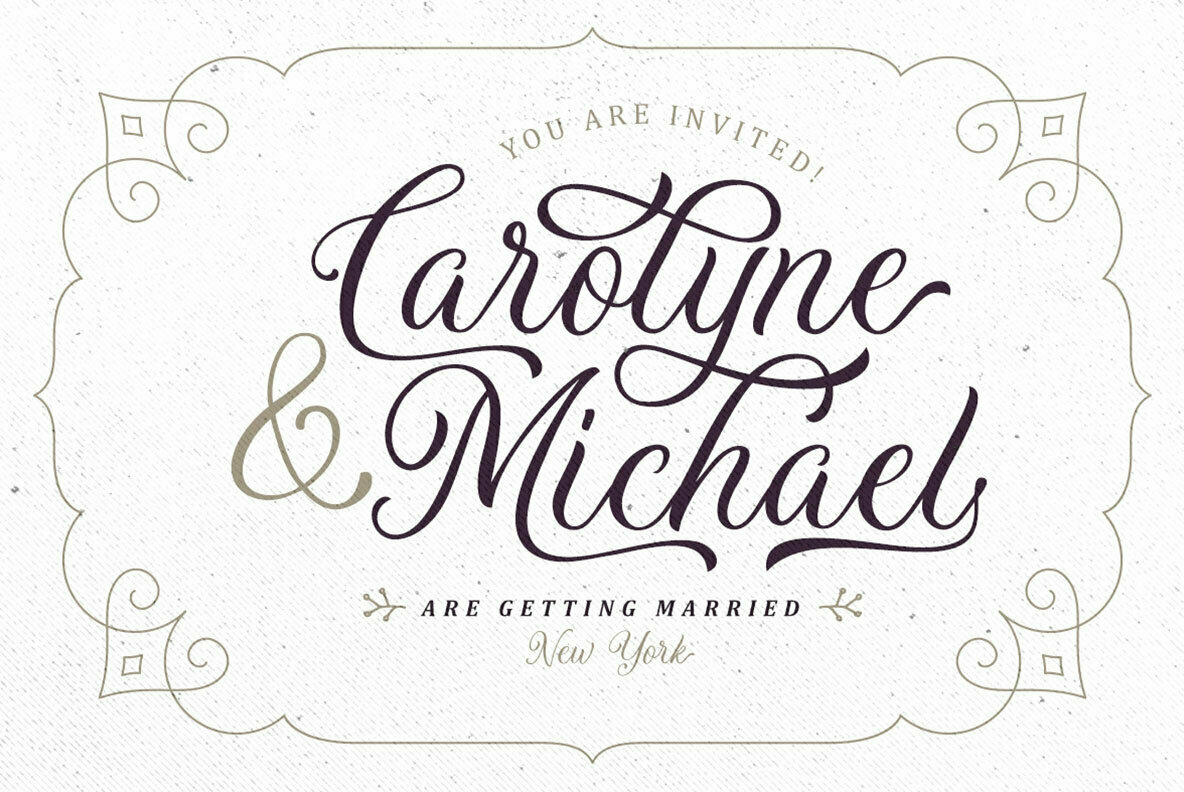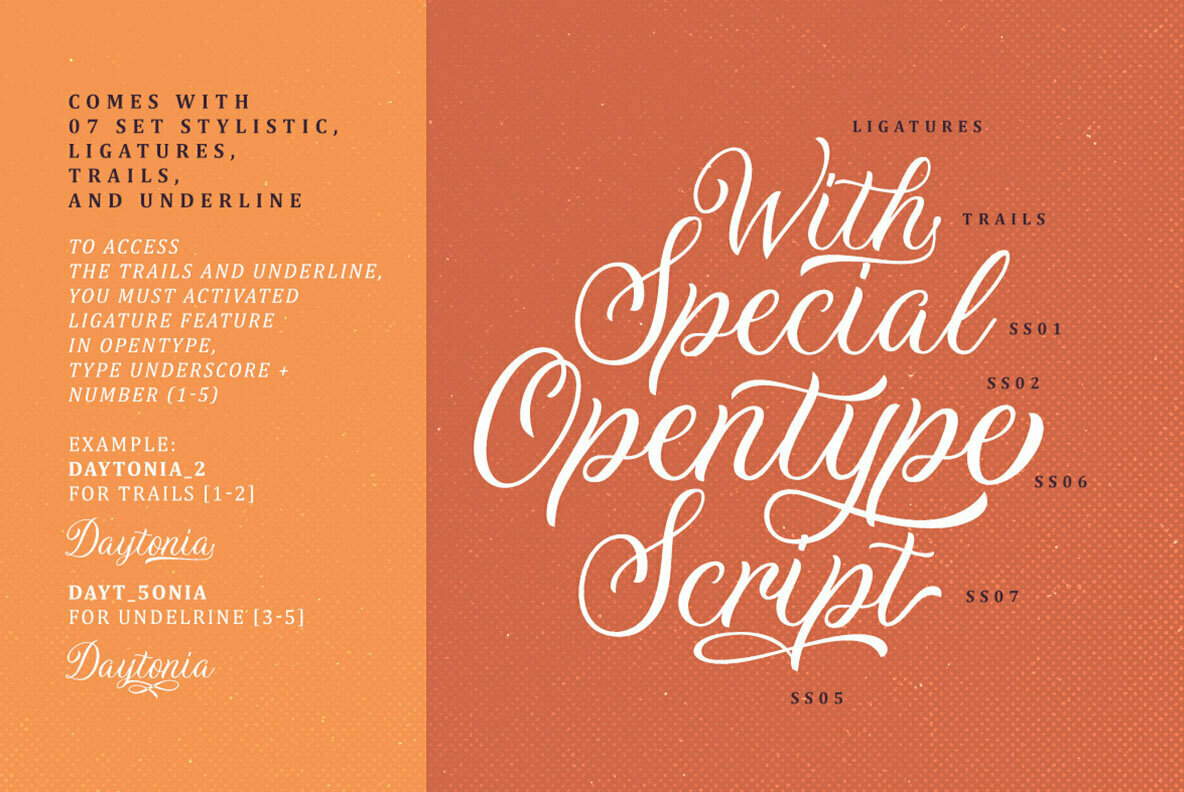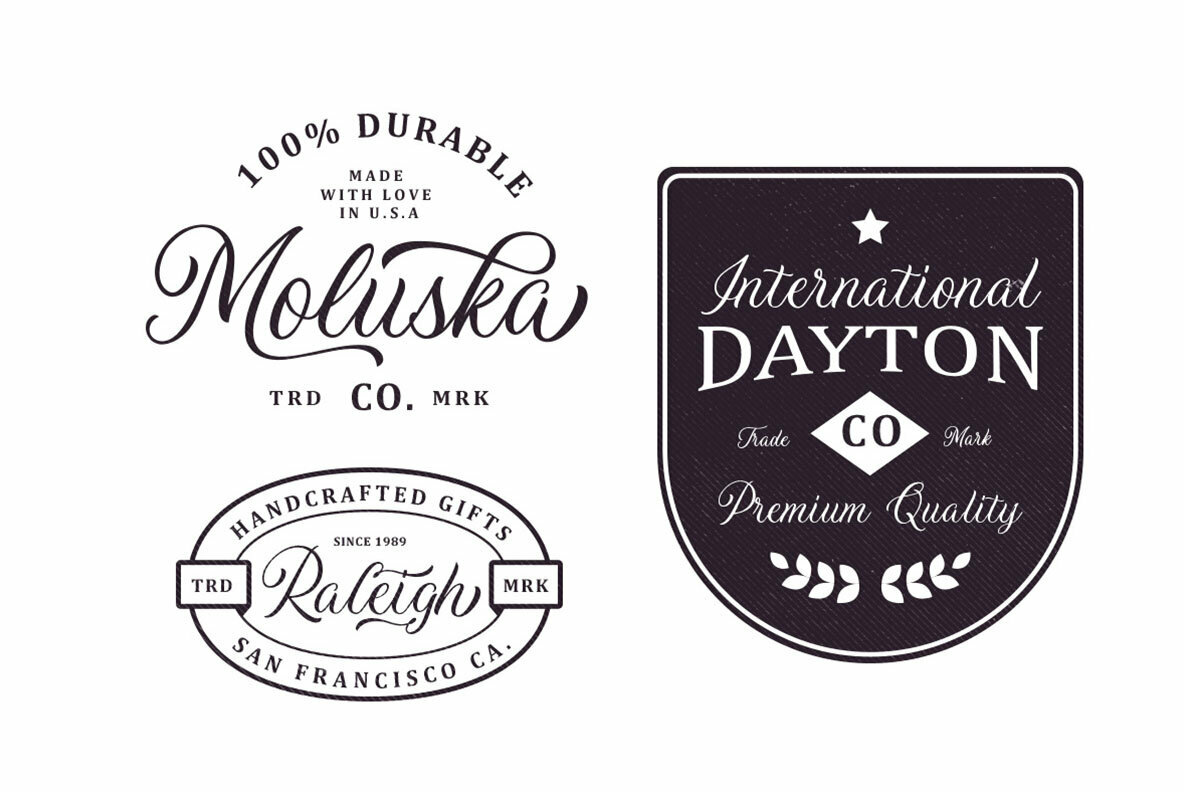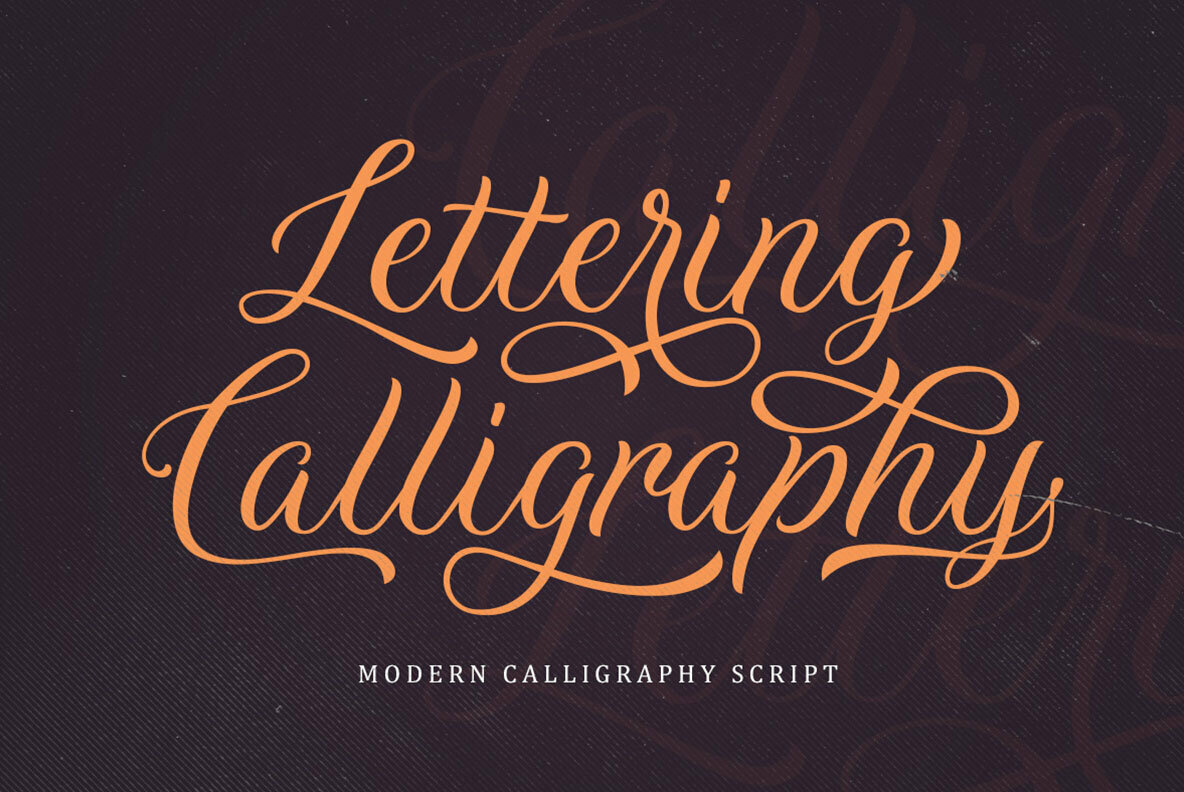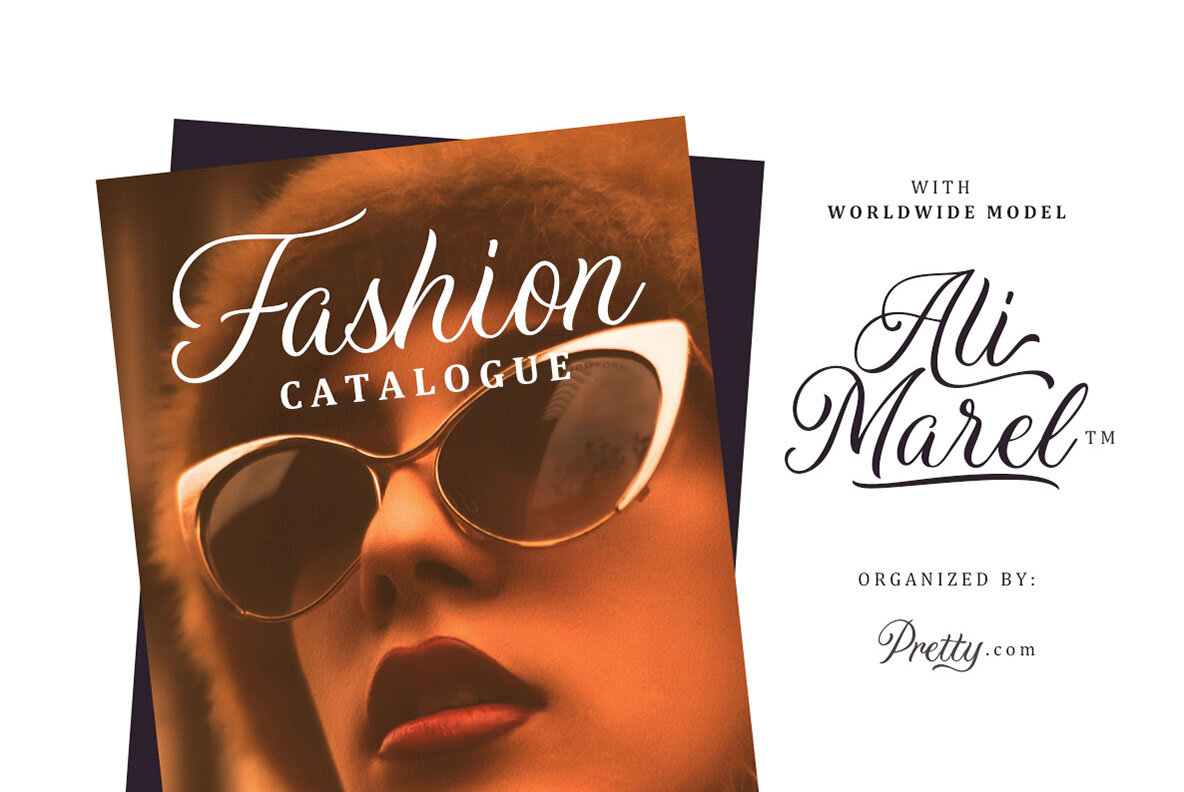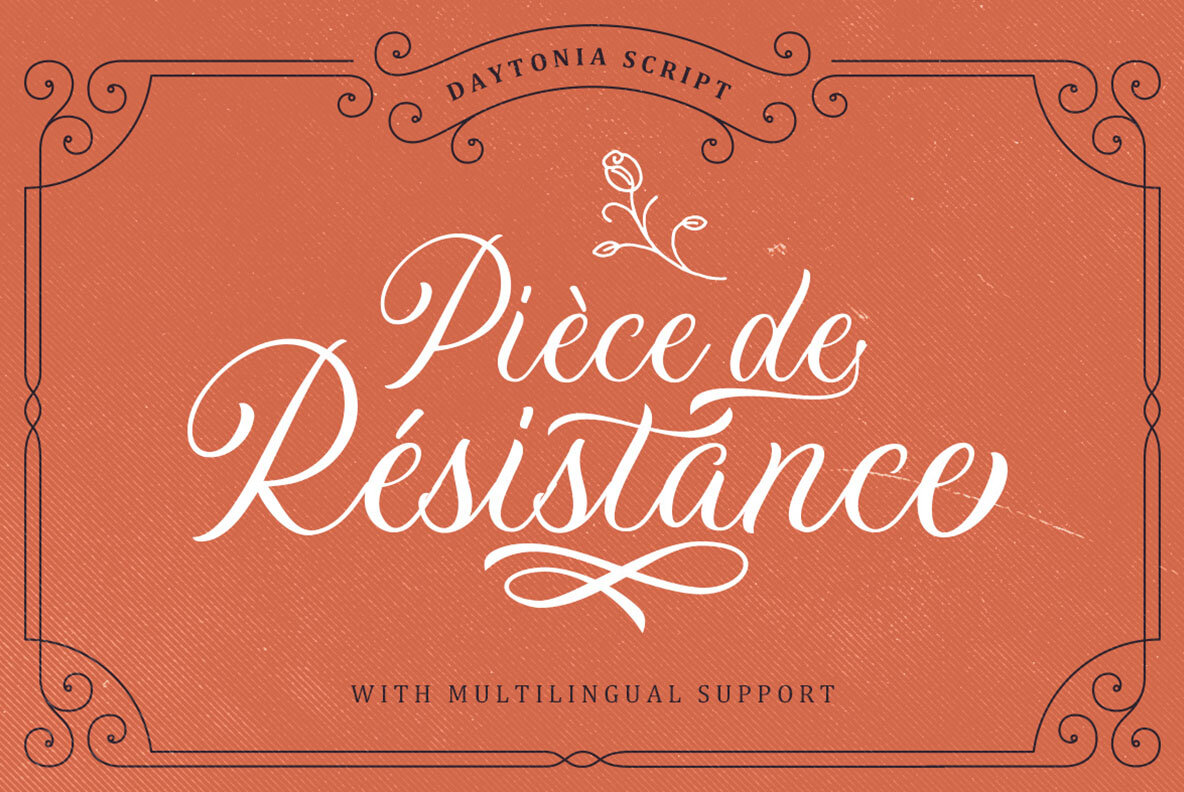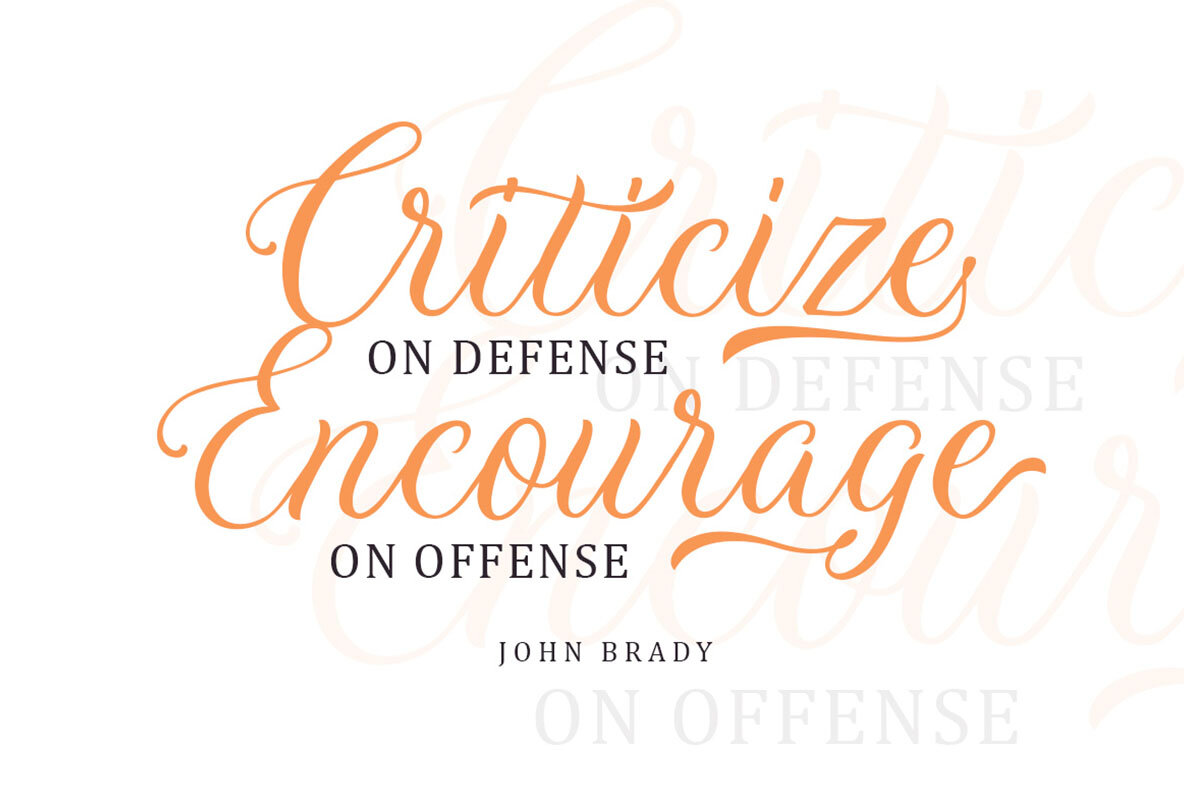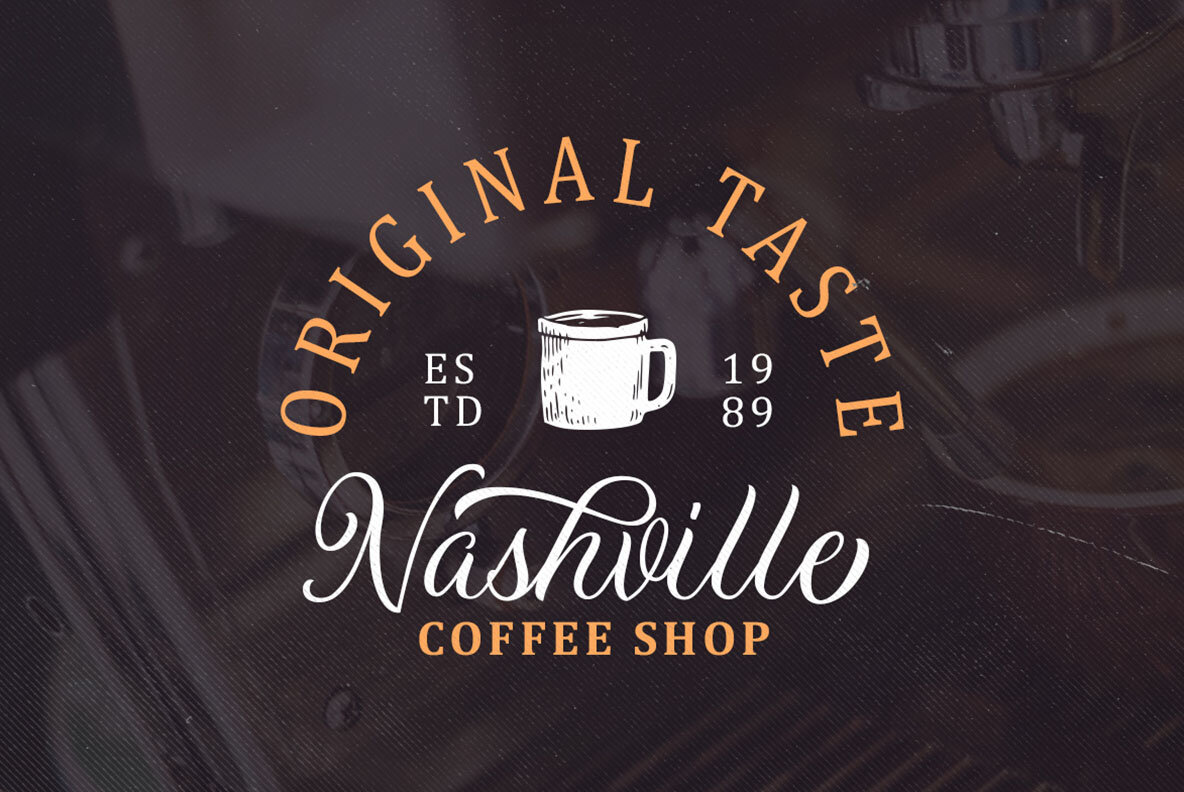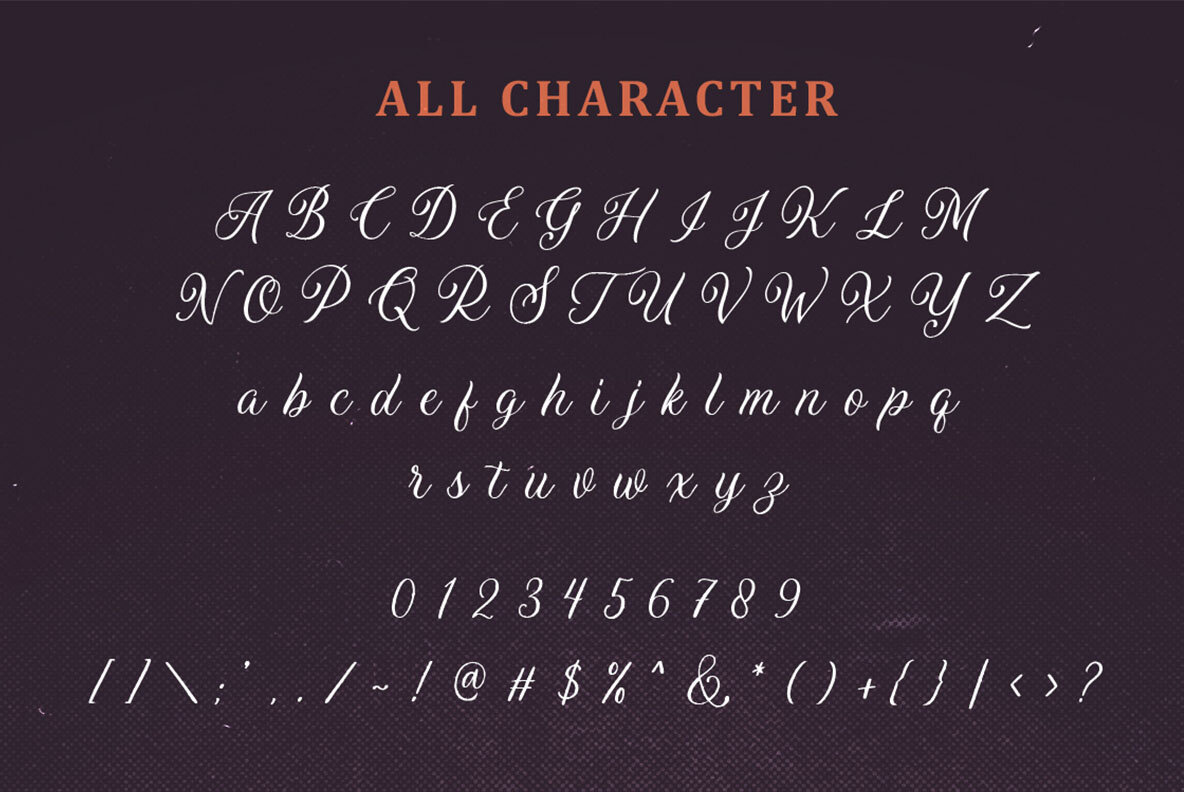
Daytonia Font
Daytonia
Daytonia presents itself as a meticulously crafted script font, perfect for a wide array of design projects. Its versatility makes it an ideal choice for everything from branding logos to apparel design. The font exudes a handcrafted charm that adds a personal touch to any project it graces. Features:Daytonia: Elegant Hand Lettering Script